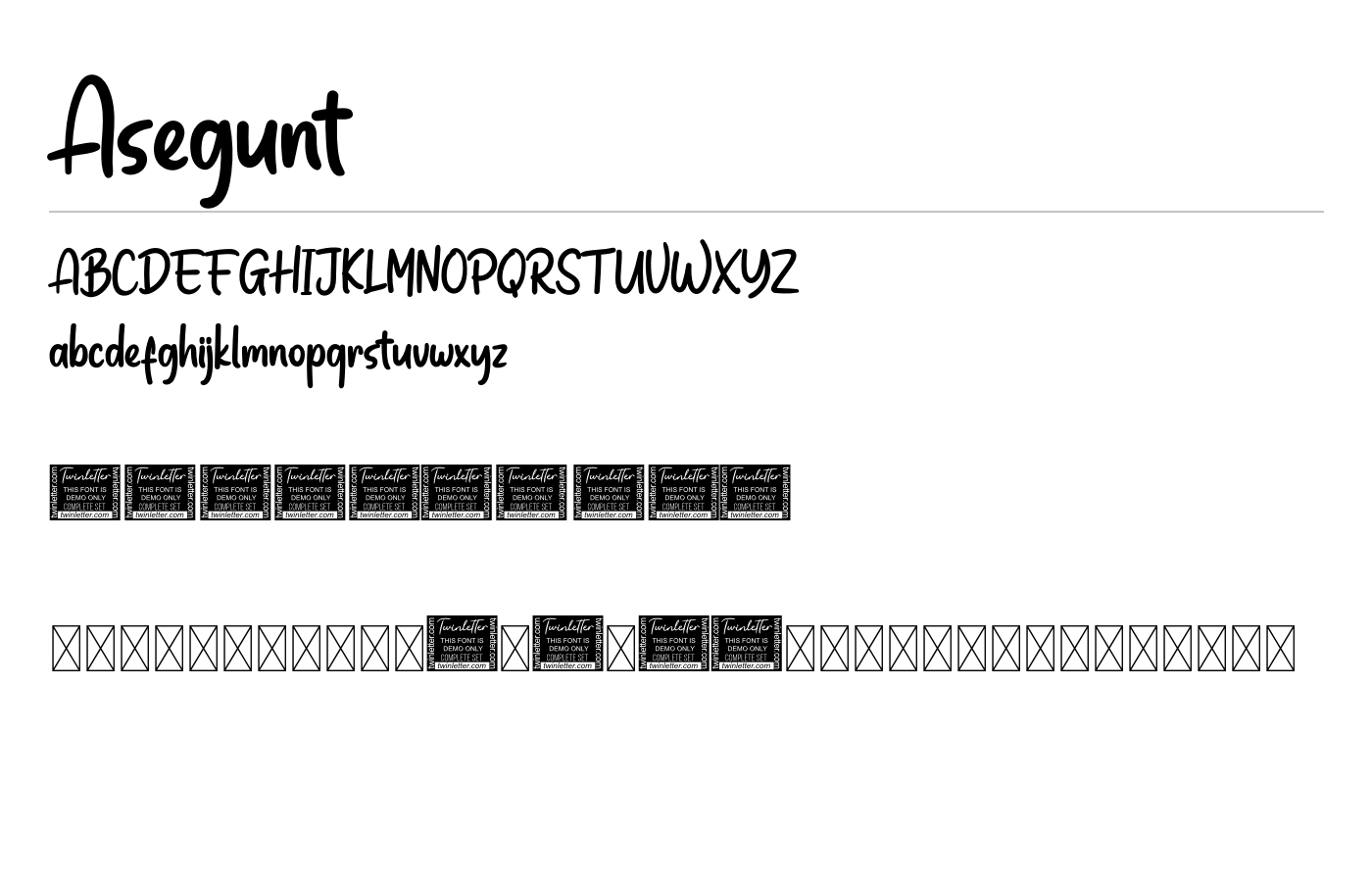
Asegunt is a playful and casual handwritten sans serif font characterized by its tall, narrow letterforms and consistent medium weight. Its friendly, slightly quirky style with rounded edges and simple strokes makes it perfect for fun and approachable branding, children's materials, or informal headlines. This font works best where a personal, warm touch is desired, adding charm and personality without sacrificing readability.
Asegunt Font
About Asegunt Font